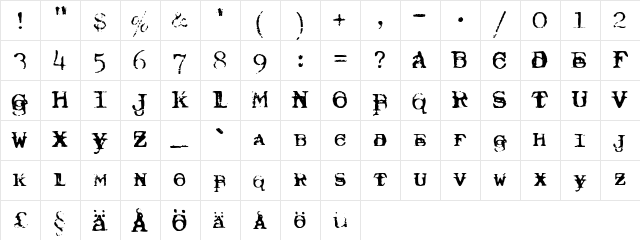
Typewriter Royal 200 Trashed Regular
| Foundry | MR.FISK FONTS |
| Designer | MR.FISK |
Design Context for Typewriter Royal 200 Trashed Typeface
Typewriter Royal 200 Trashed uses fixed-width spacing throughout, giving it the structured, systematic character associated with coding environments and technical documentation.